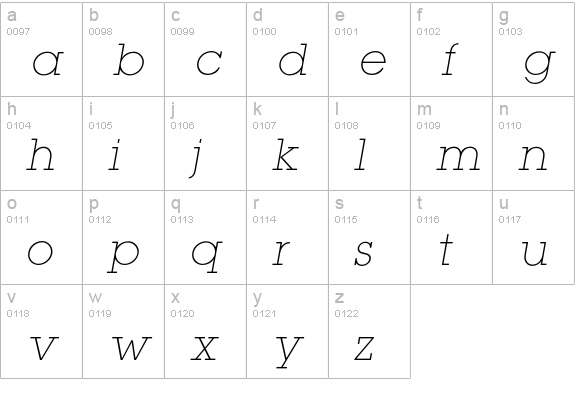
LubalinXLightOblique Font Details
LubalinXLightOblique is a stylish and elegant font that exudes sophistication and modernity. Its sleek oblique design adds a touch of flair to any project, making it perfect for use in branding, advertising, and editorial design. The unique letterforms of LubalinXLightOblique effortlessly blend classic influences with a contemporary edge, creating a versatile typeface that stands out from the crowd. What sets LubalinXLightOblique apart is its exquisite balance of soft curves and sharp angles, resulting in a visually striking appearance that commands attention. Whether used for headlines, subheadings, or body text, this font adds a touch of refinement to any design. The best part? LubalinXLightOblique is available for free download at FontsMarket.com. Now you can elevate your projects with this premium font without breaking the bank. Don't miss out on the opportunity to enhance your designs with the timeless elegance of LubalinXLightOblique.